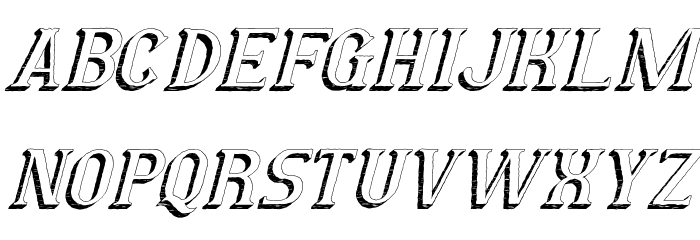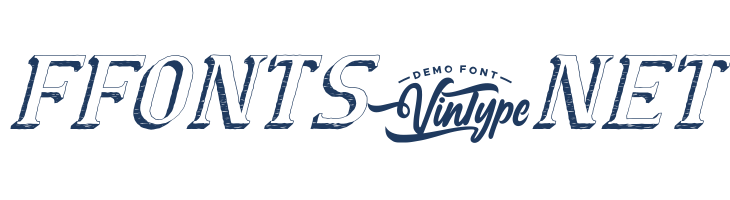
White Letters Demo Italic Font
This font features a bold and dynamic italic style with a strong presence. The letters are designed with a distinct slant, giving them a sense of motion and energy. The strokes are thick and consistent, providing a robust and impactful appearance. The font maintains a classic serif structure, with each character exhibiting sharp, angular serifs that enhance its traditional yet modern appeal. The overall design is clean and legible, making it suitable for various applications where emphasis and style are required.
| Proposed Projects | Ideal for branding, headlines, posters, and any design requiring a bold statement. |